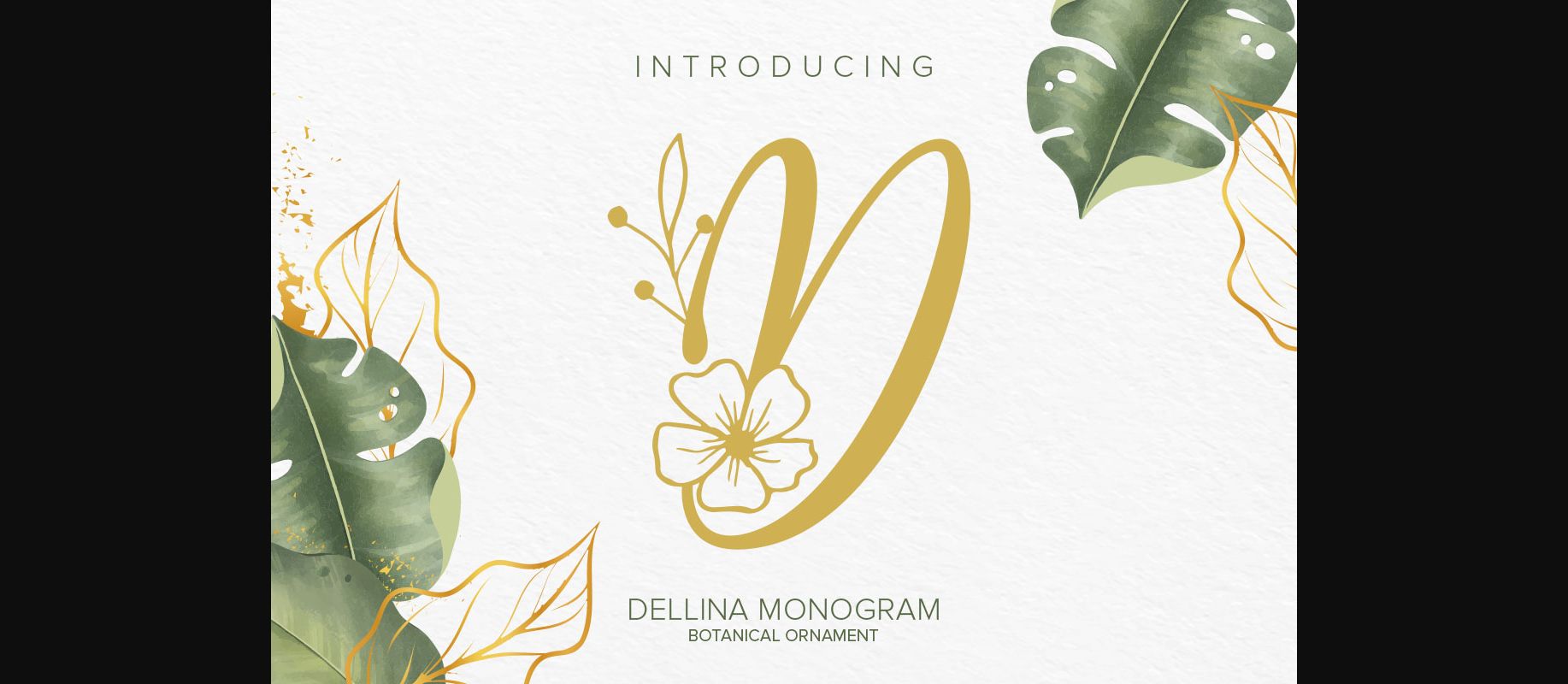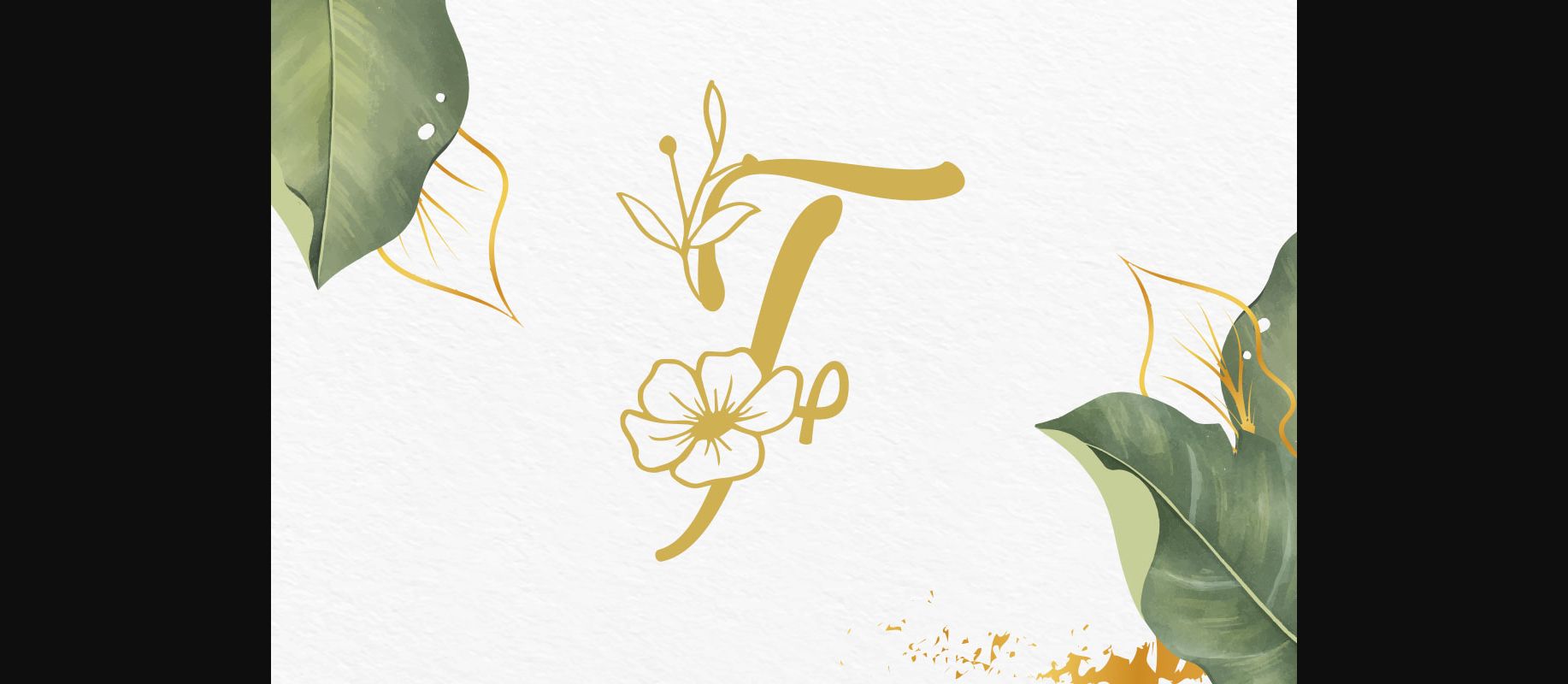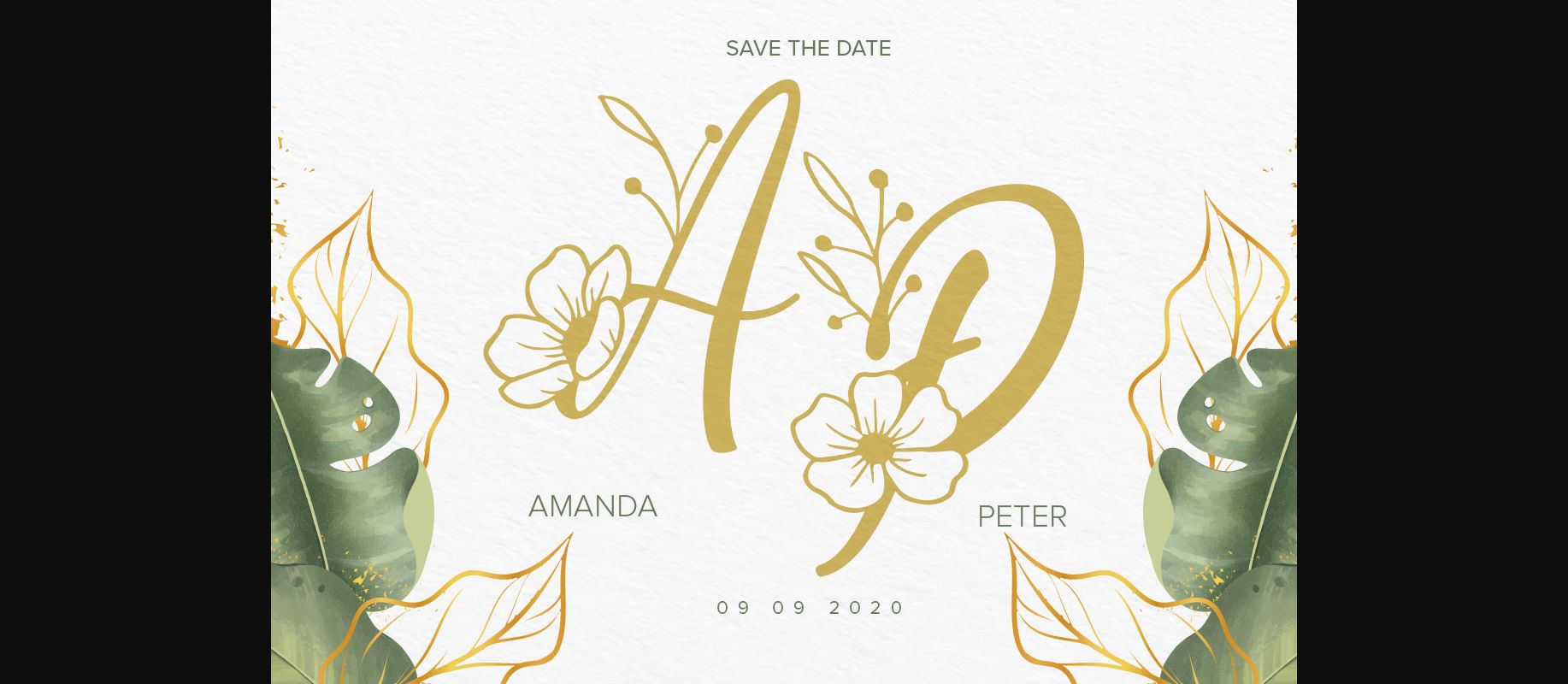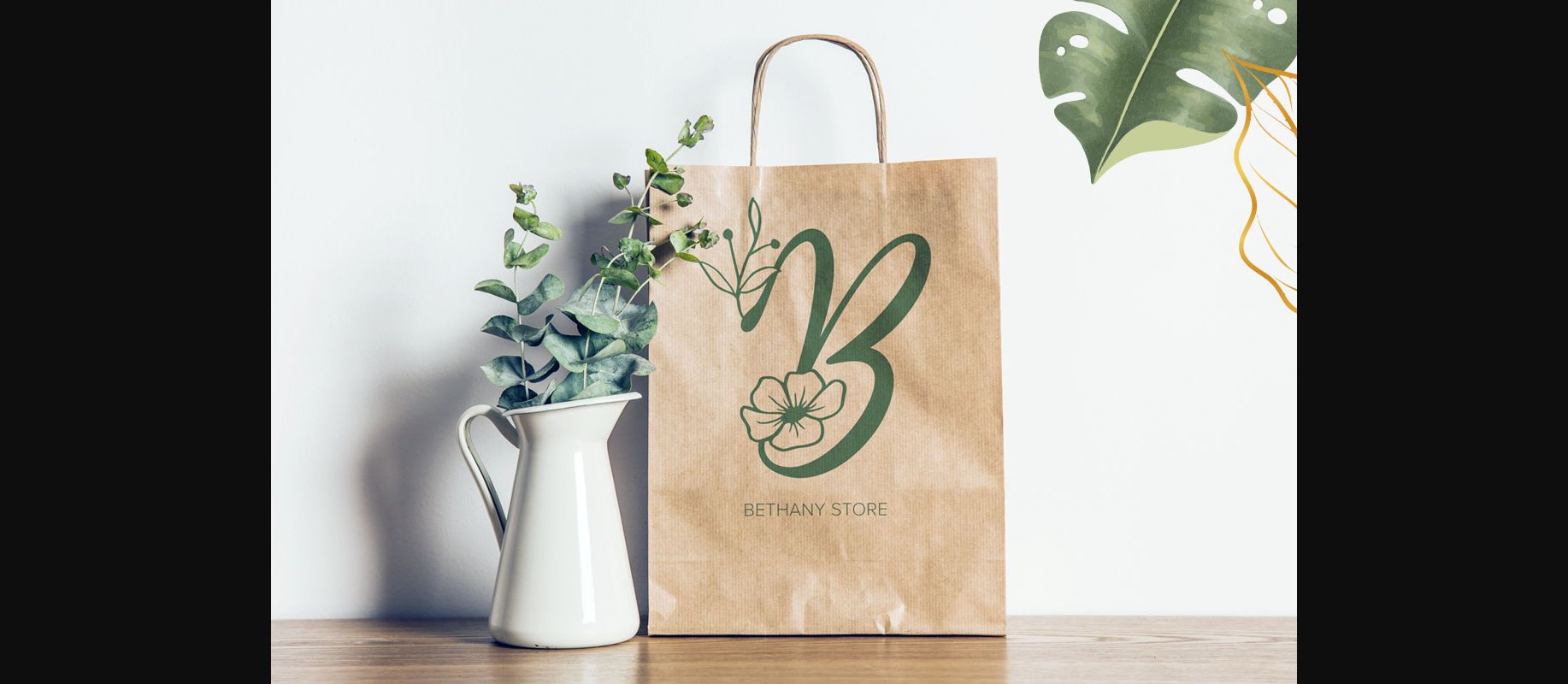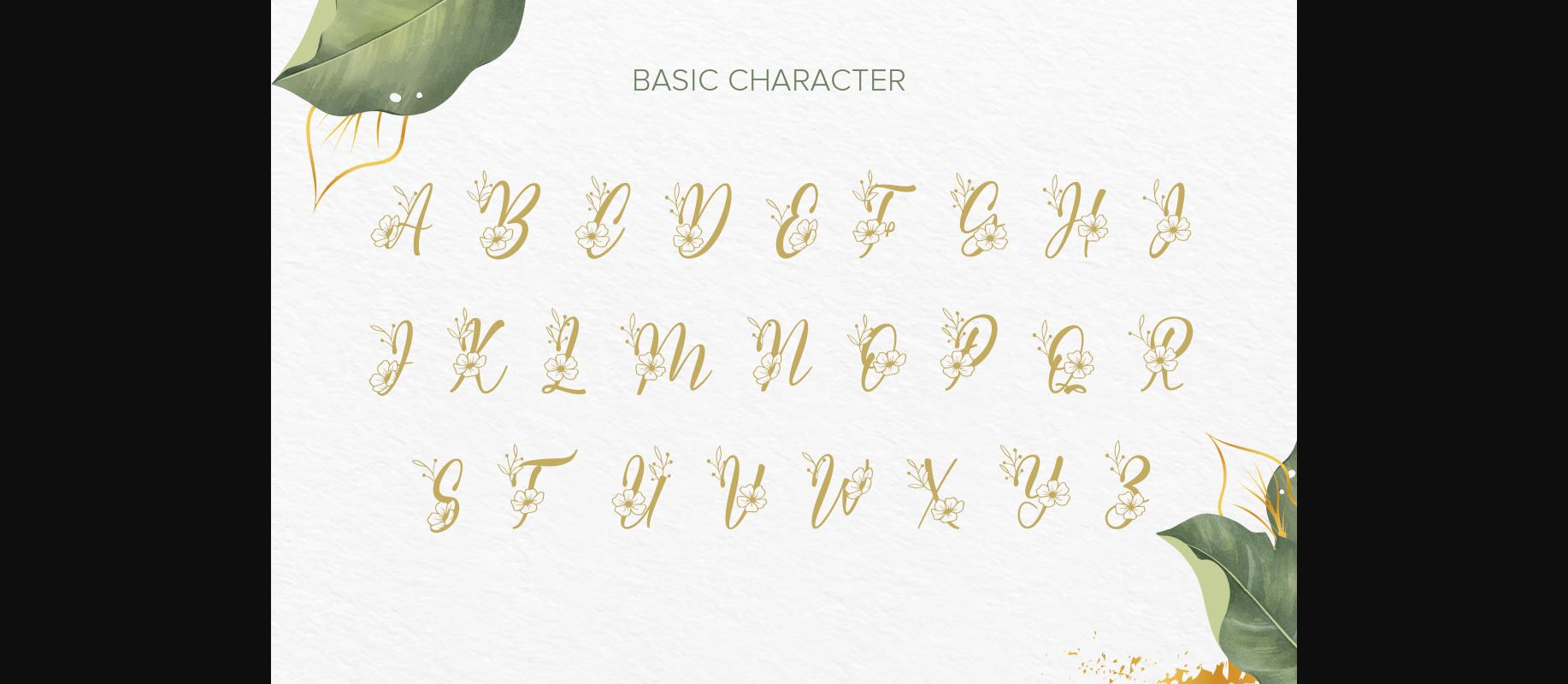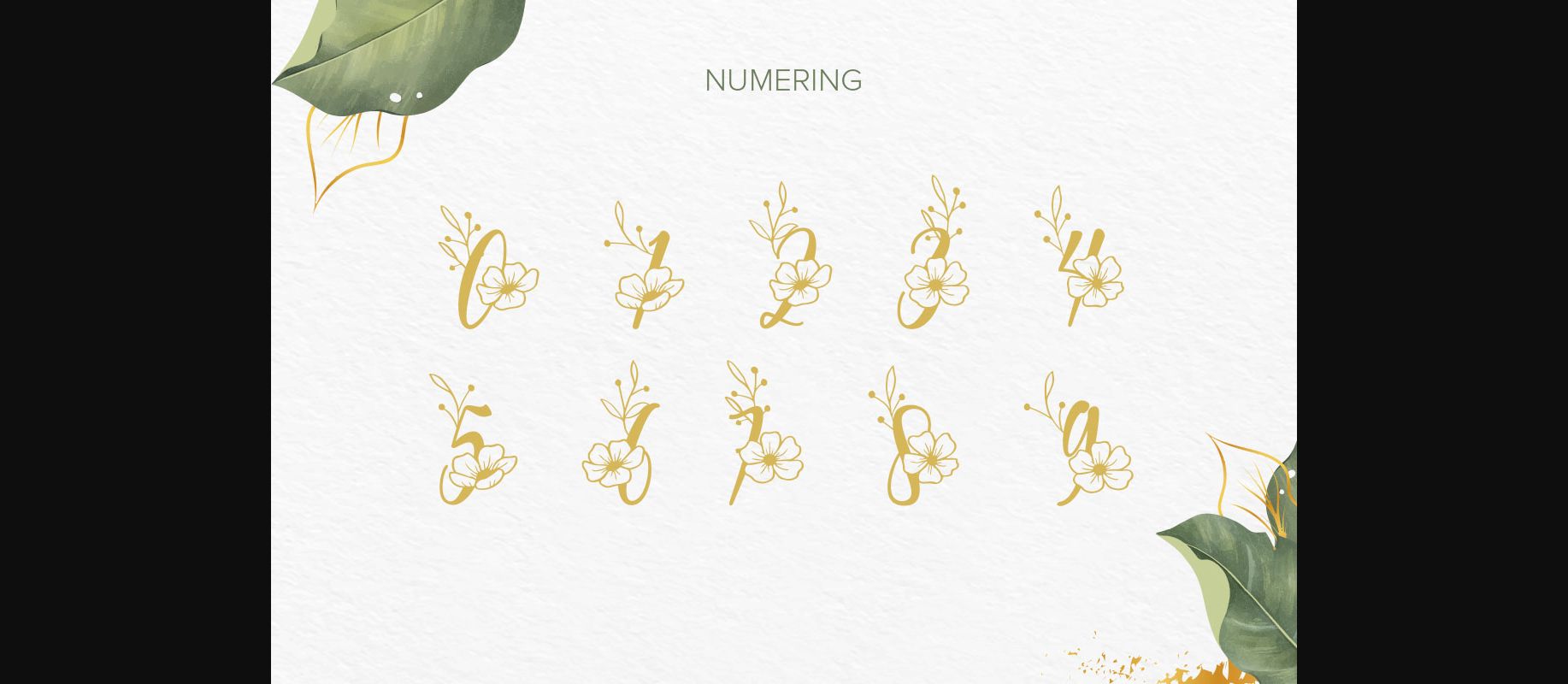
Dellina Monogram Font
About Dellina Monogram Font
Dellina Monogram is a flowing and relaxed decorative font, featuring sweet and delicate flowers. Its natural and unique style makes it incredibly fitting to a large pool of designs. The only limit is your imagination!